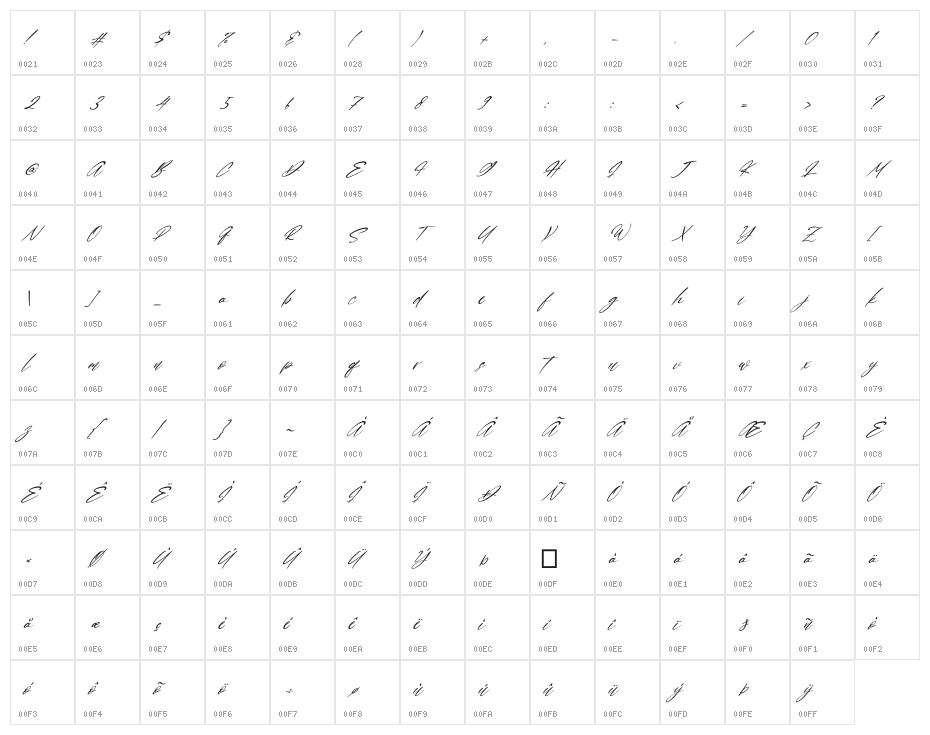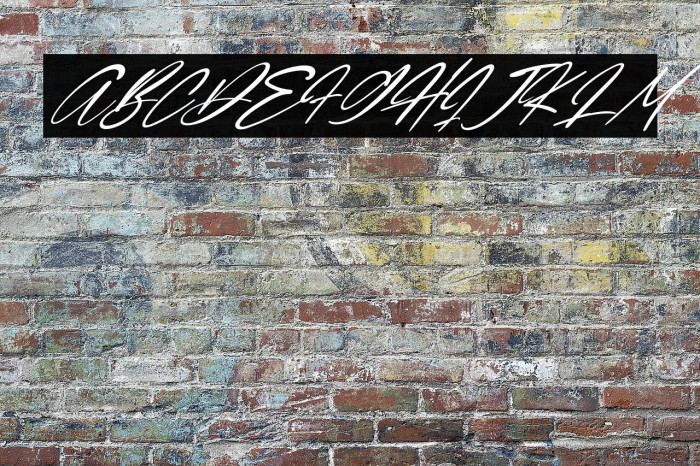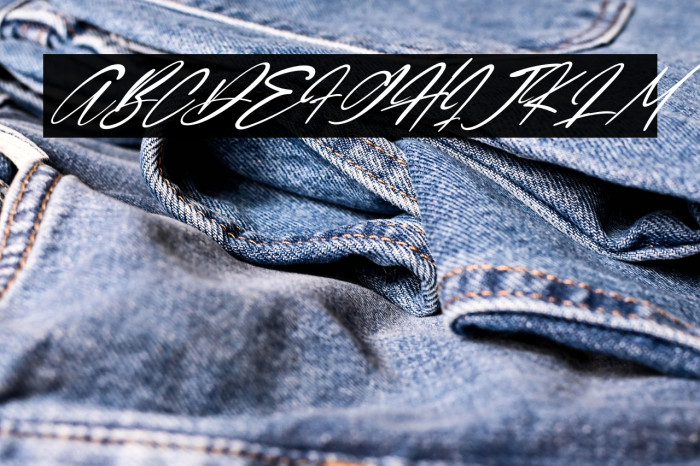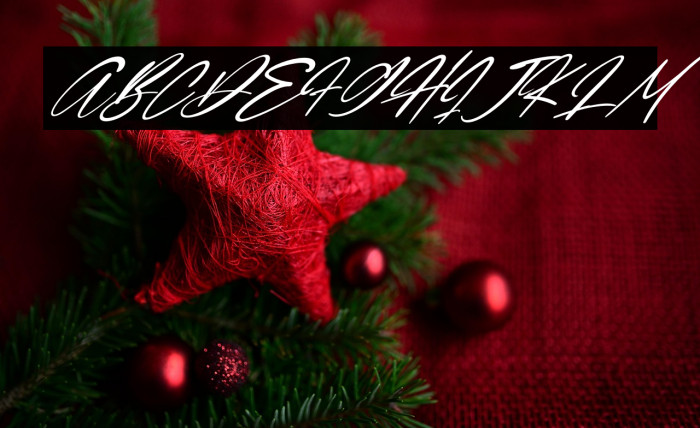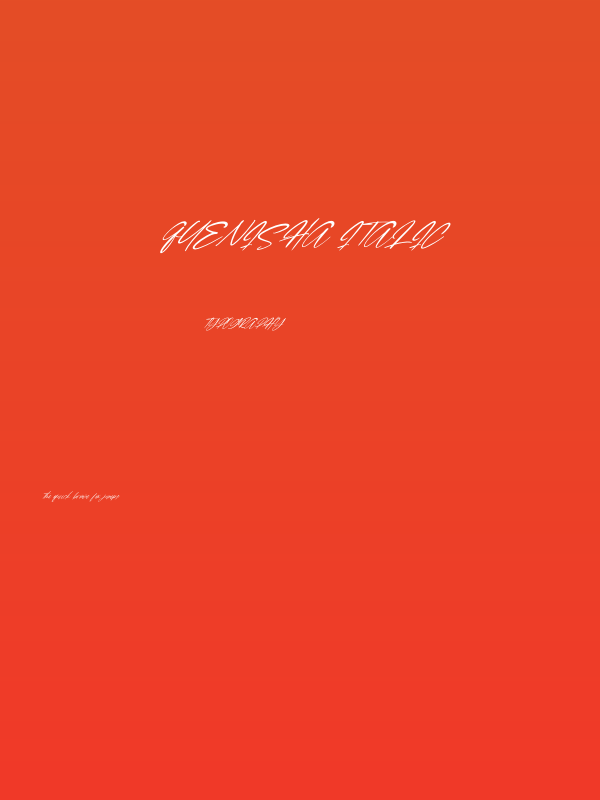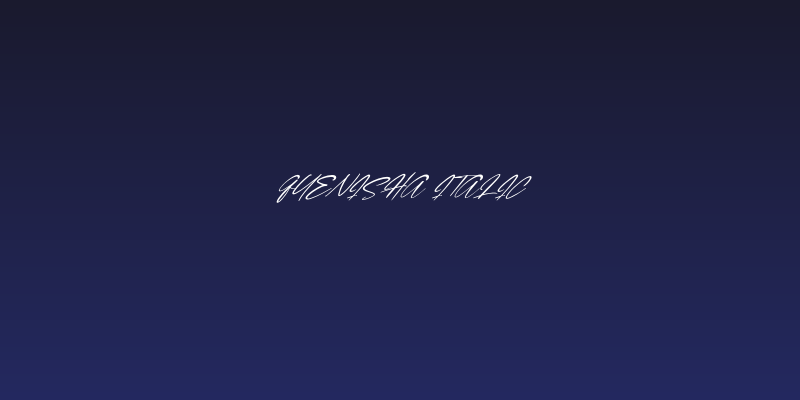
Quenisha Italic Font
Quenisha Italic Description
This font features an elegant and flowing script style, characterized by its italicized and cursive letterforms. The strokes are smooth and connected, giving it a handwritten appearance. The uppercase letters are bold and prominent, while the lowercase letters maintain a consistent flow, enhancing readability. The numerals are stylish and align well with the overall script theme. Special characters are designed to complement the font's aesthetic, making it suitable for decorative purposes. The font's overall design exudes sophistication and grace, making it ideal for projects that require a personal and artistic touch.